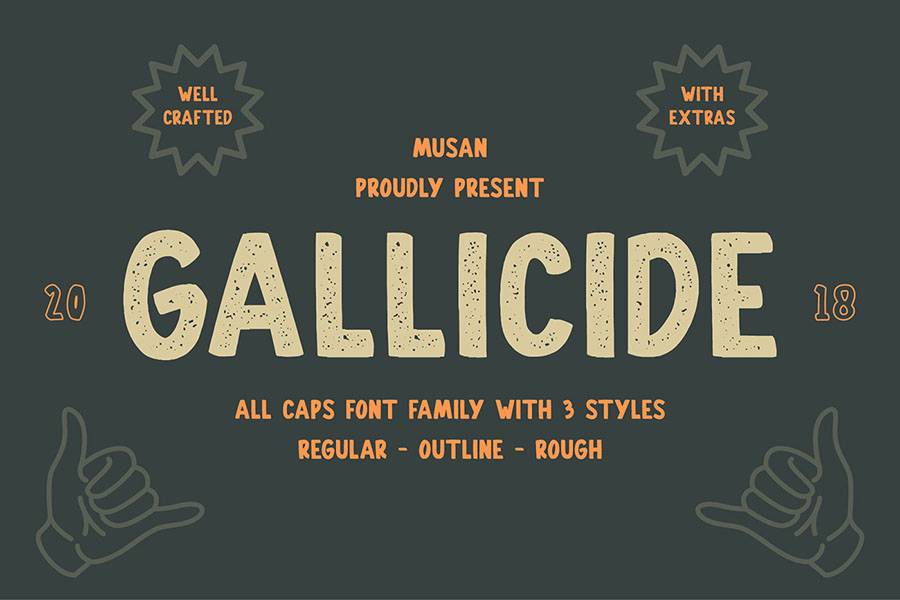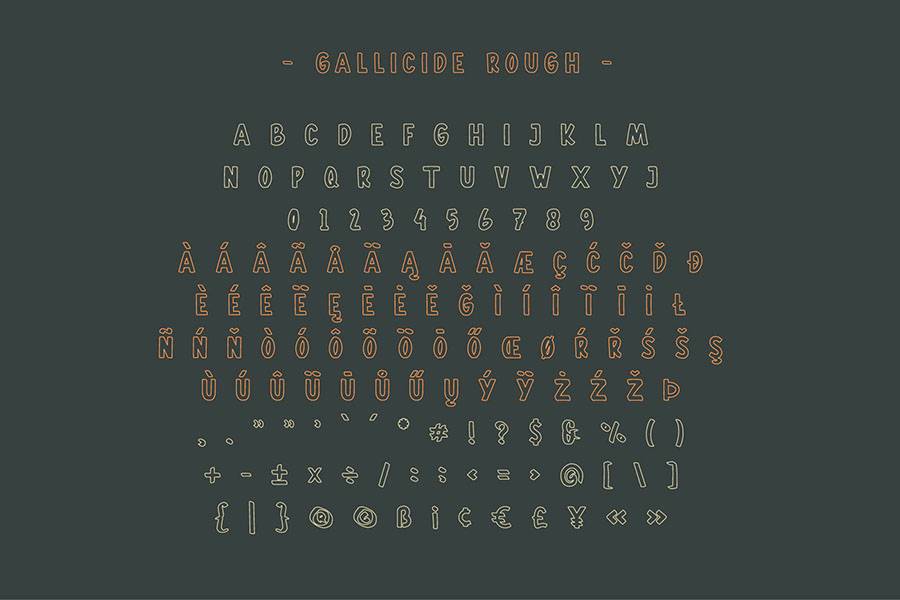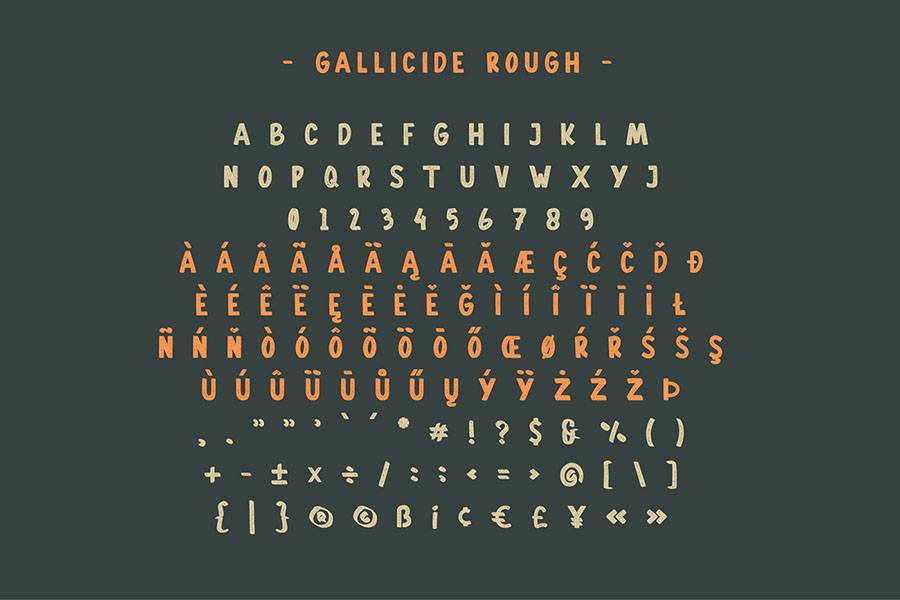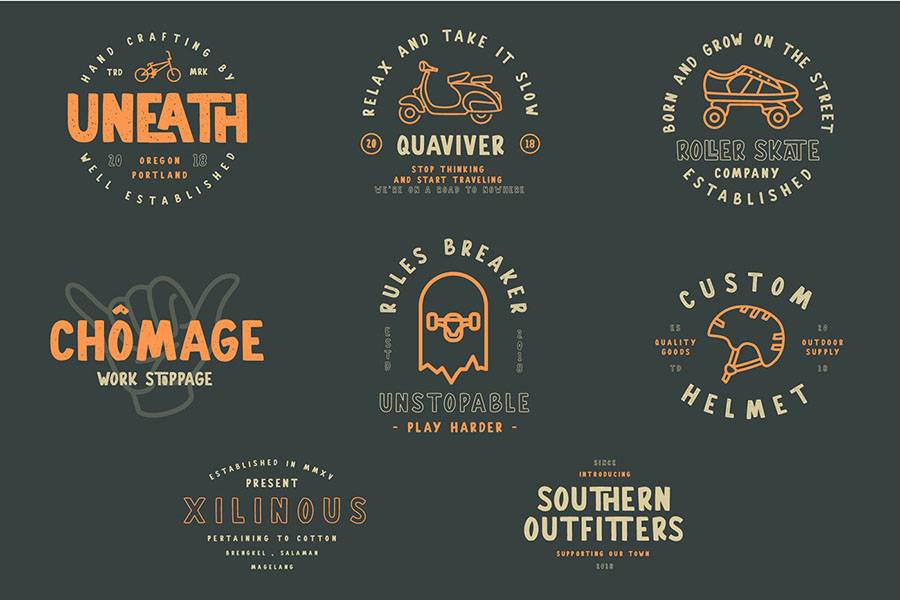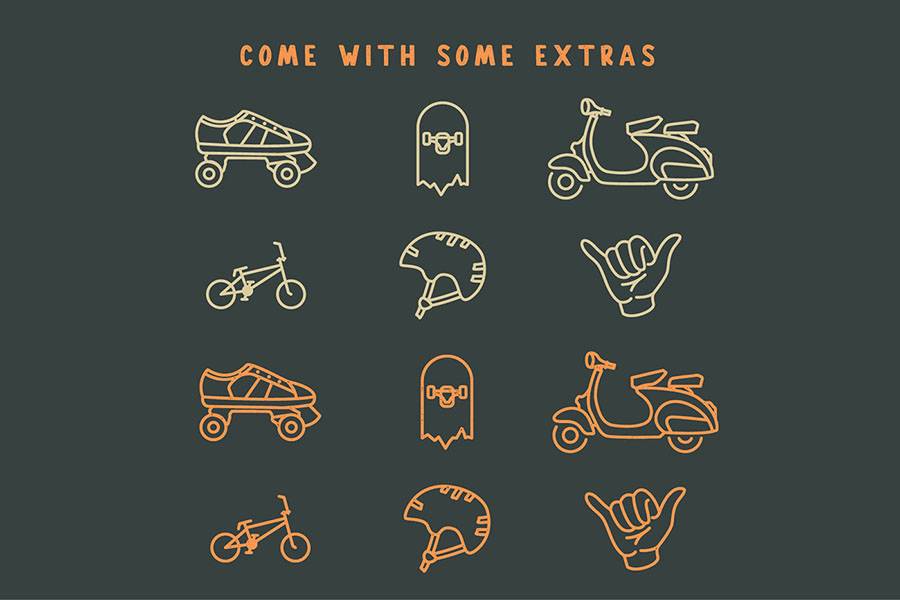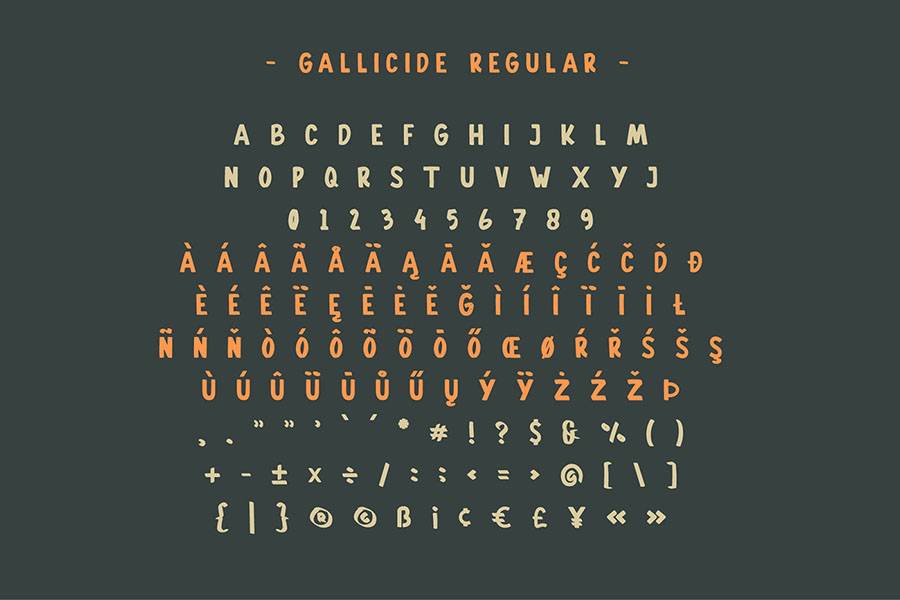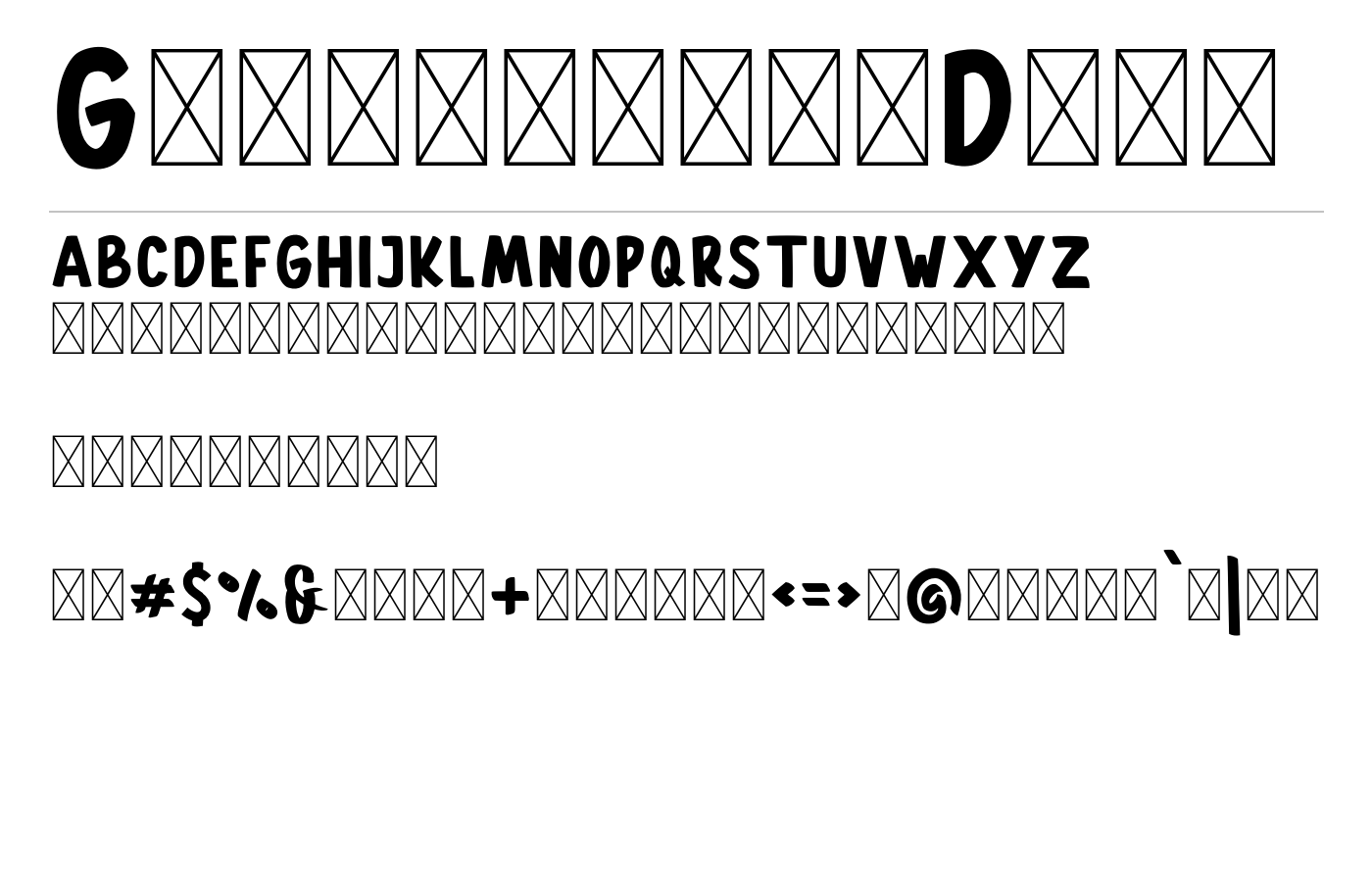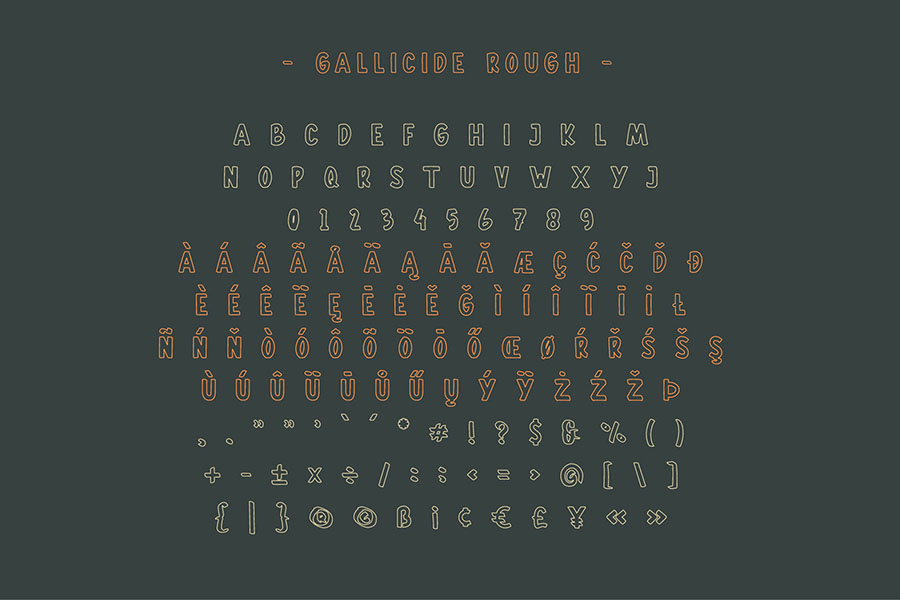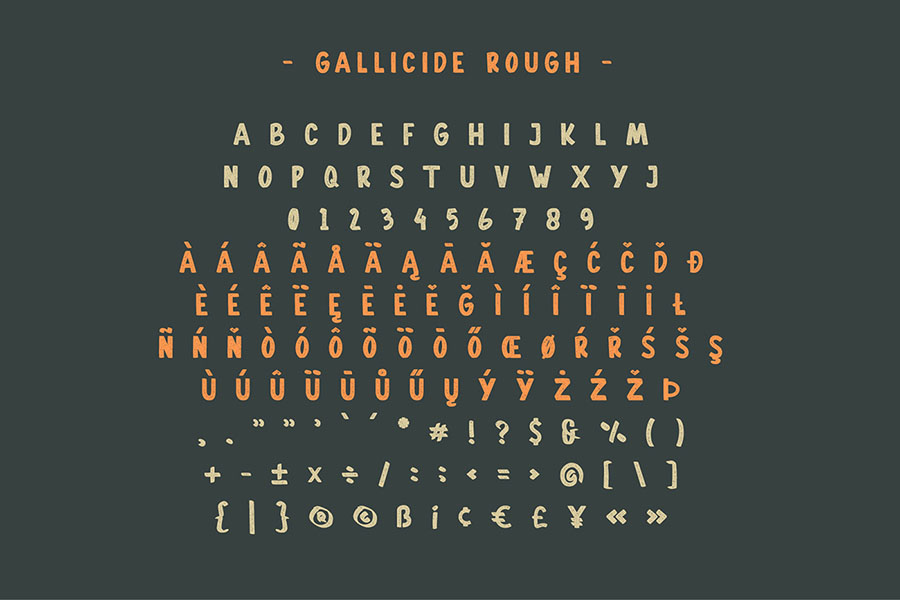
Gallicide Display is a bold sans serif typeface with a playful, hand-drawn character that feels lively and approachable. Its quirky letterforms and uneven shapes give it a fun, informal style perfect for eye-catching headlines, logos, and creative branding where a casual, friendly vibe is desired. This font works well in designs that want to convey energy and personality without sacrificing readability.
Gallicide Display Font Family
About Gallicide Display Font Family
| Font family | Gallicide Display Font Family |
| Designer | MuSan |